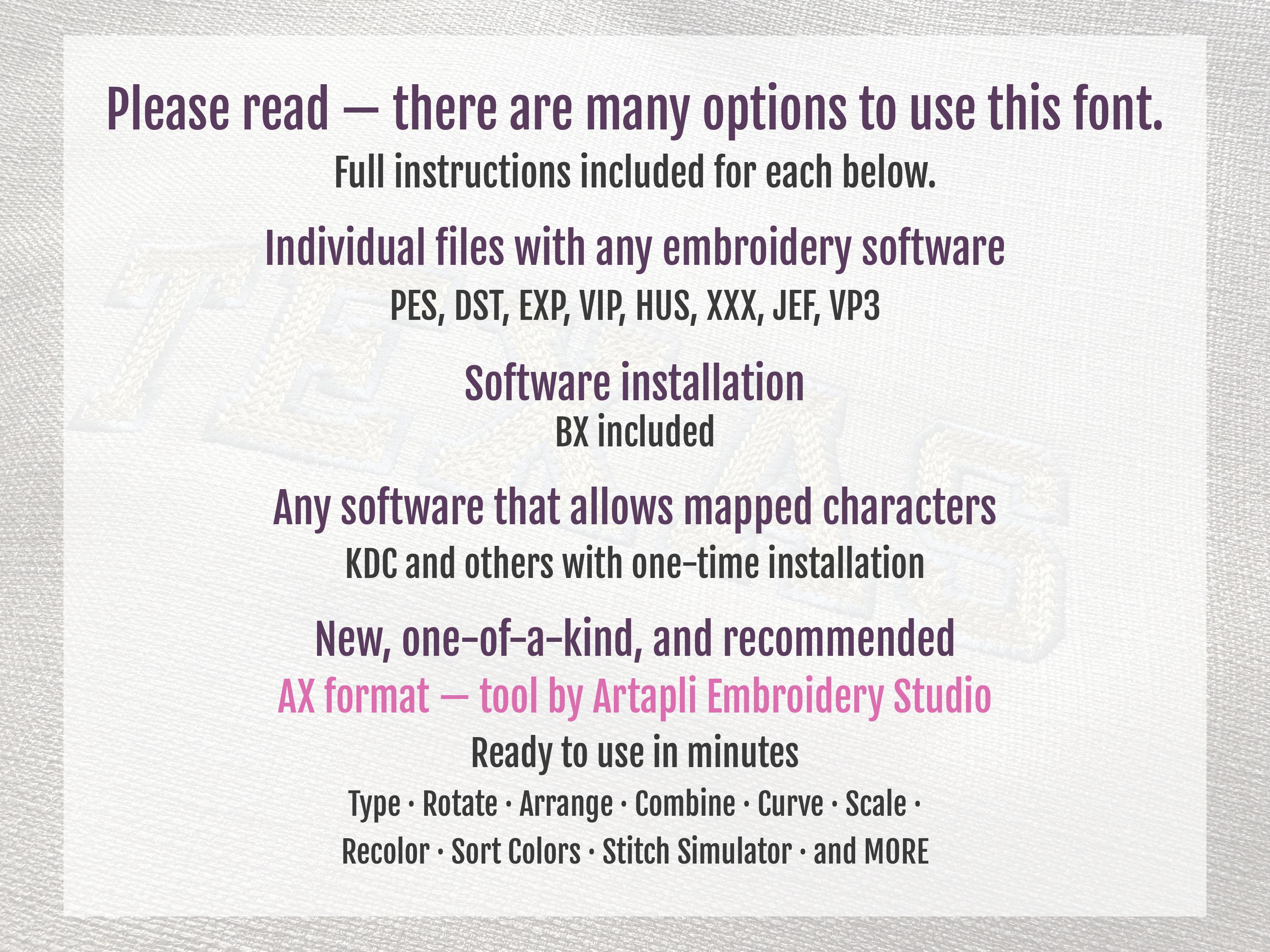
Chain stitch Font Applique satin stitch outline Block Sport Collegiate Font monogram alphabet machine embroidery designs MINI sizes and BX
Applique font
Whole alphabet A-Z uppercase and numbers 0-9.